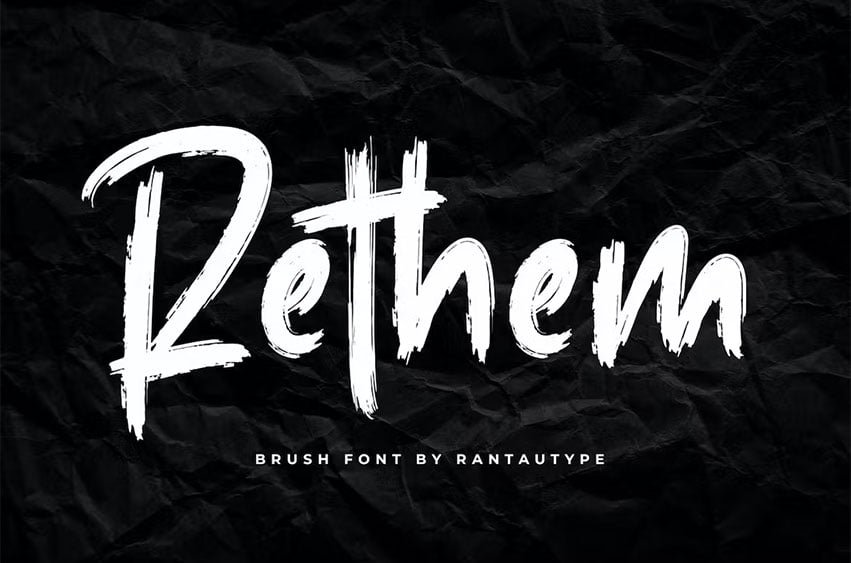
Rethem Font introduces a Rethem brush font. This font is suitable for logos, packaging designs, posters, business cards, covers, broadcasts, quotes, books, etc. Let’s we go, to make you business go to next level with Rethem.
*Standart Letter A-Z *Numberial Functional *Ligature *Multilinggual support